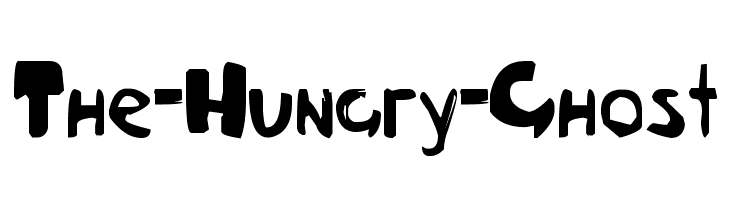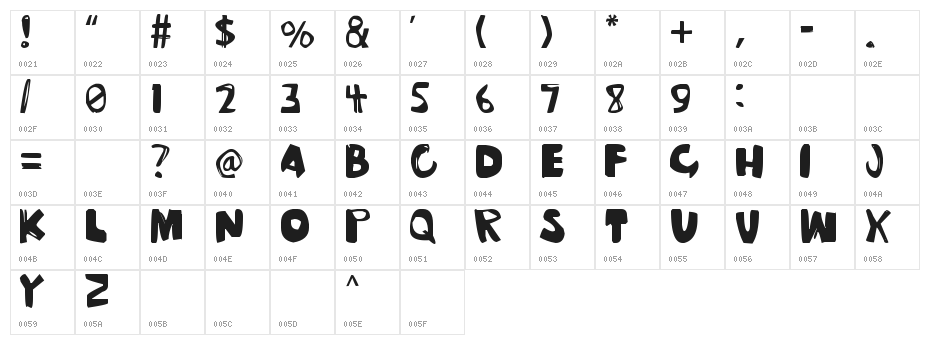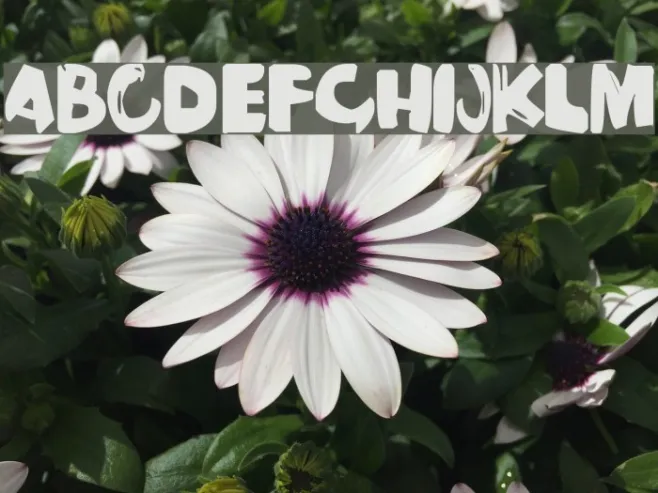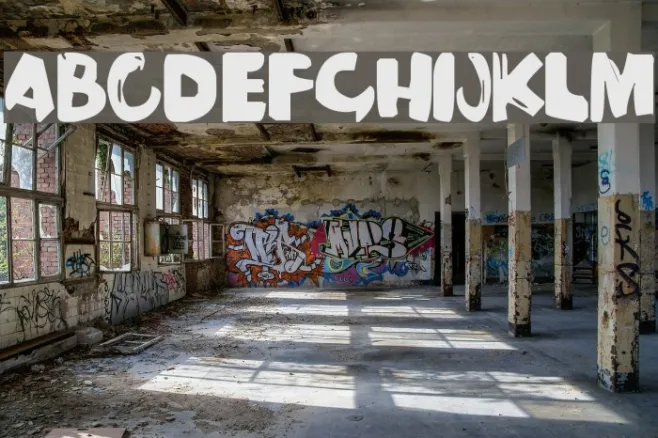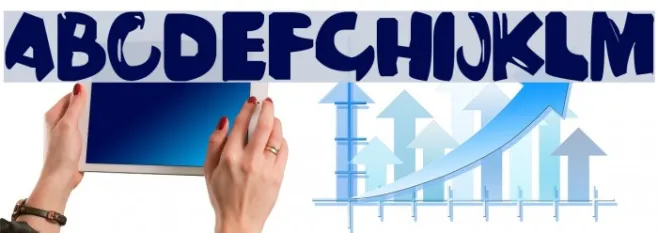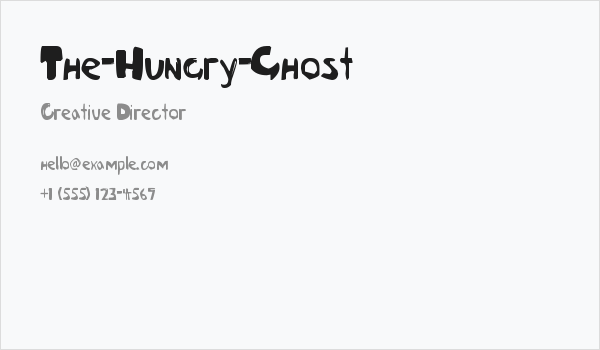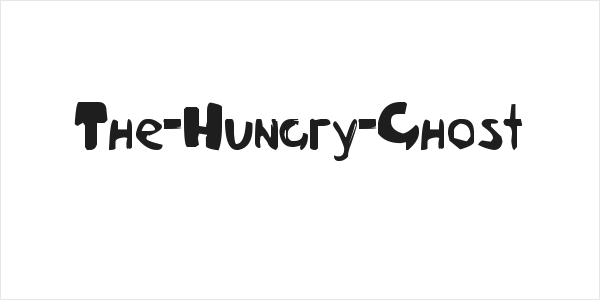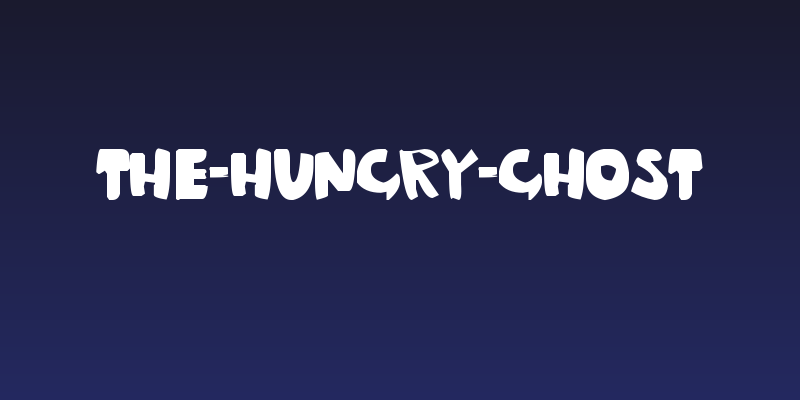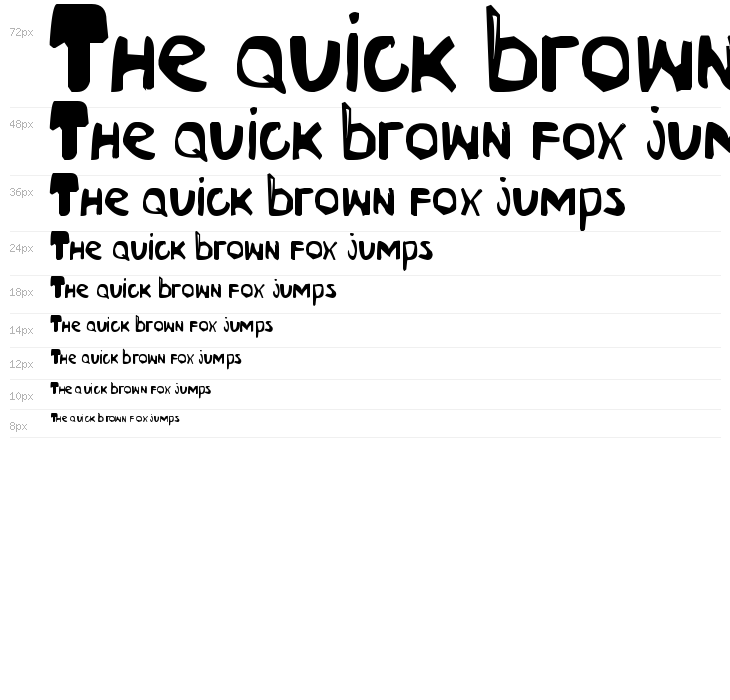
The-Hungry-Ghost Font
The-Hungry-Ghost Description
This font features a bold and playful design with a slightly irregular and hand-drawn appearance. The characters are thick and have a whimsical, cartoonish style, making them stand out with a unique personality. The uppercase and lowercase letters maintain a consistent style, with some characters having exaggerated curves and angles. The numbers and special characters follow the same playful theme, adding to the font's overall charm. This font is perfect for projects that require a fun and eye-catching look, such as children's books, posters, or creative branding.
Overall StylePlayful, Cartoonish, Whimsical
Use CaseHeadlines, Posters, Creative Branding
Proposed ProjectsIdeal for children's books, playful posters, creative branding, and eye-catching designs.